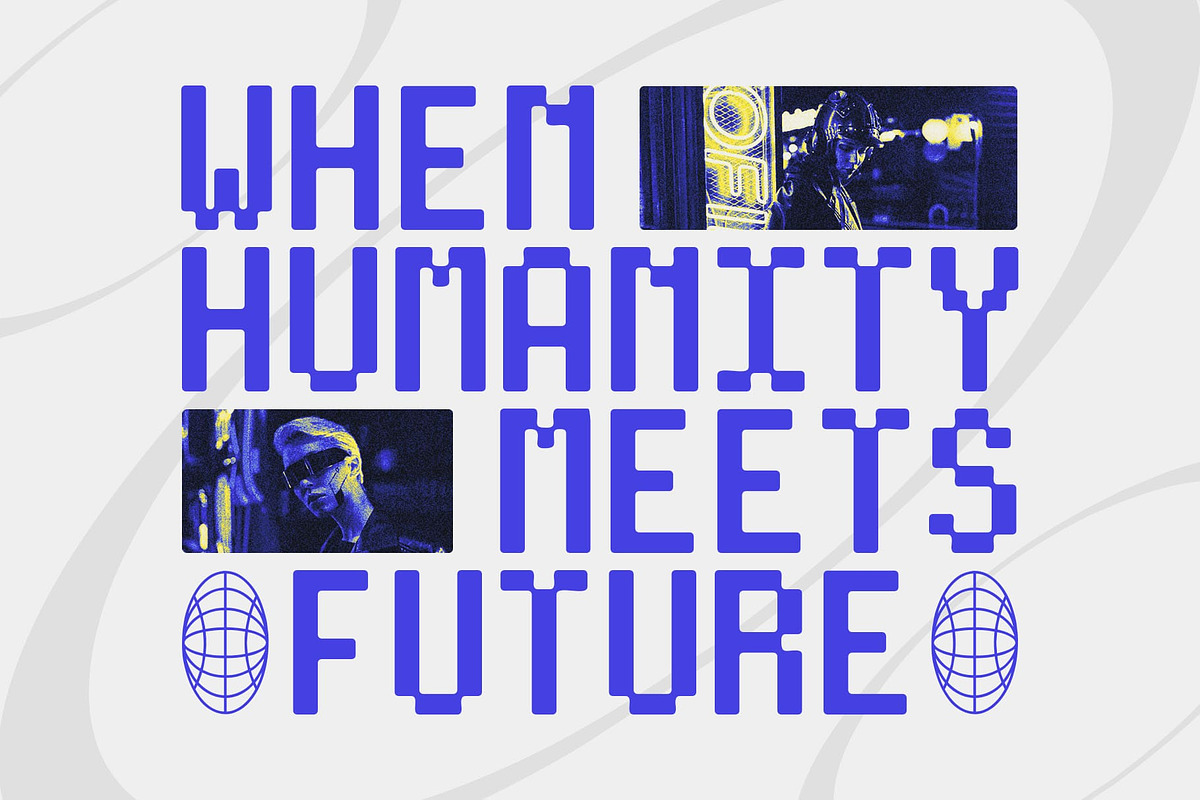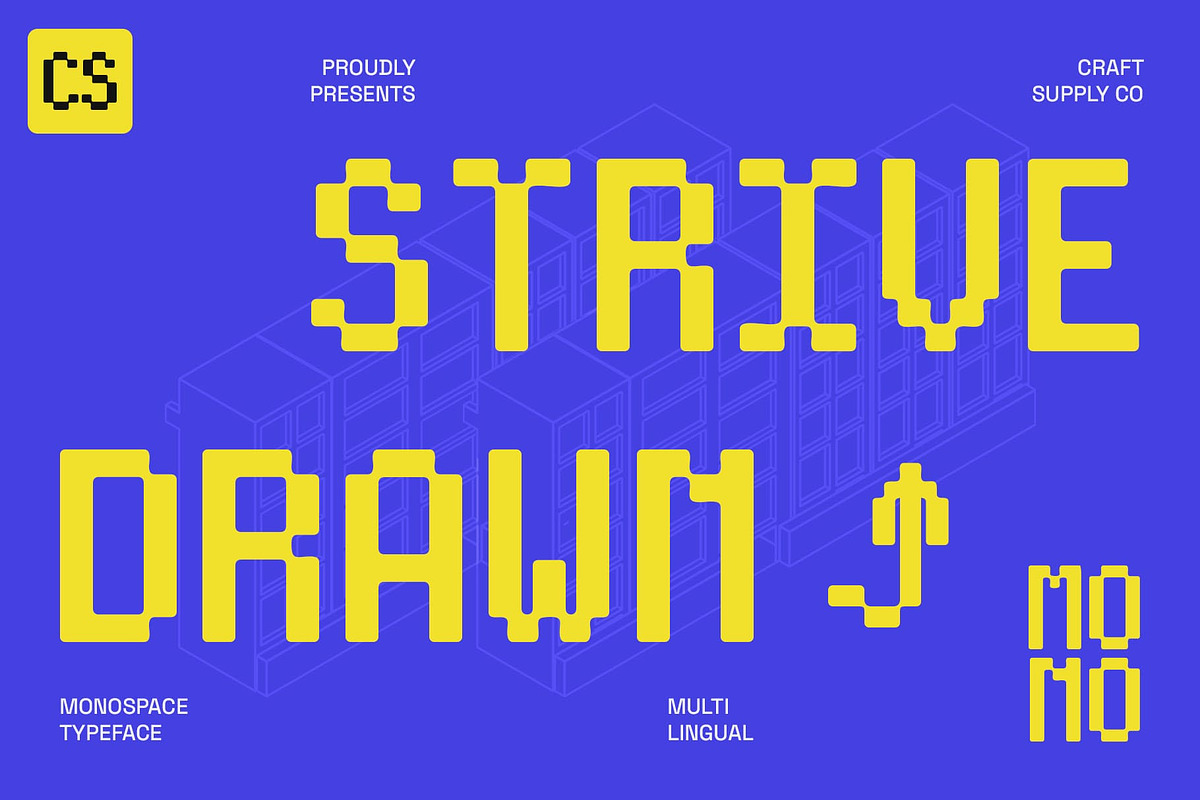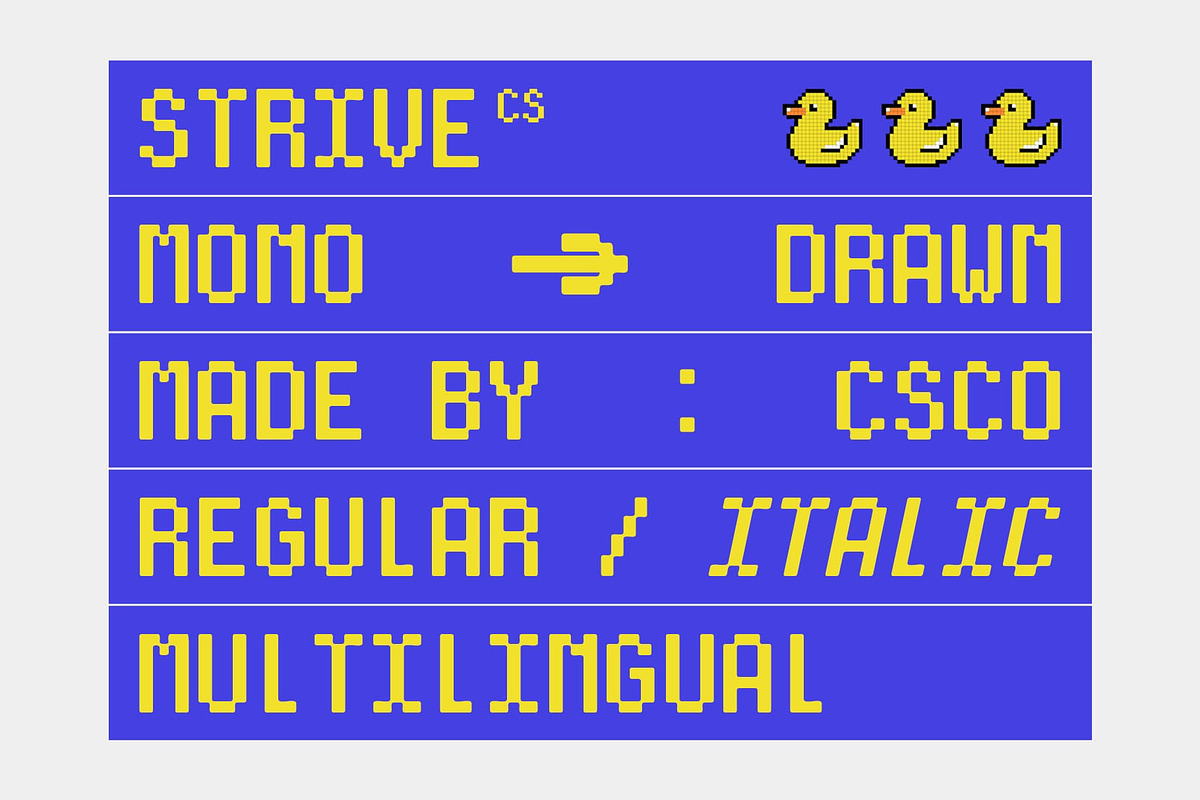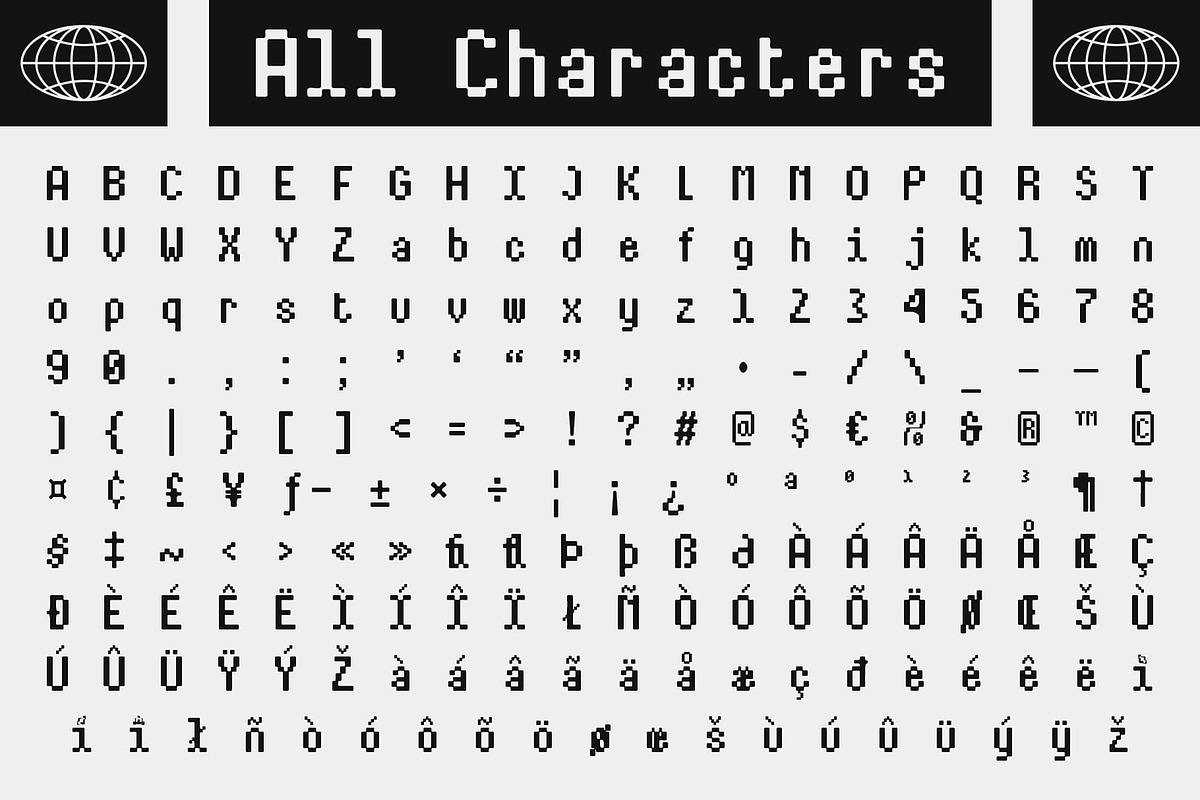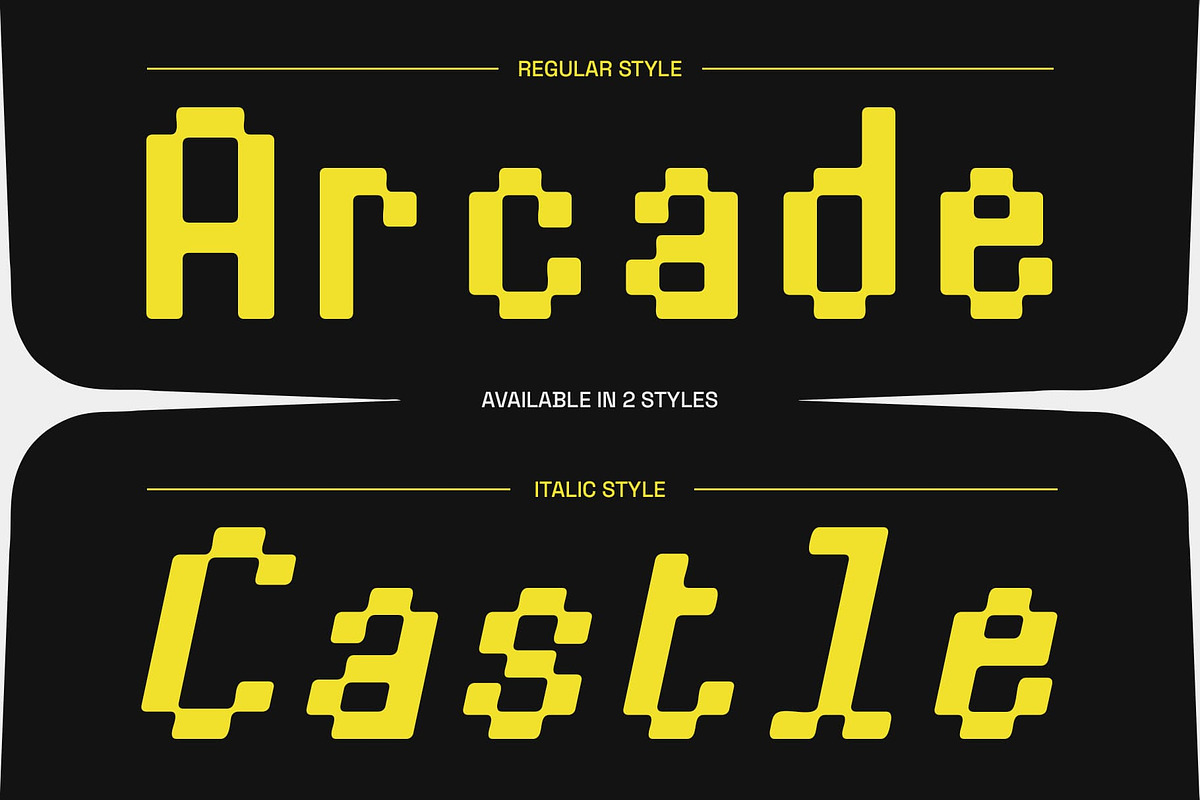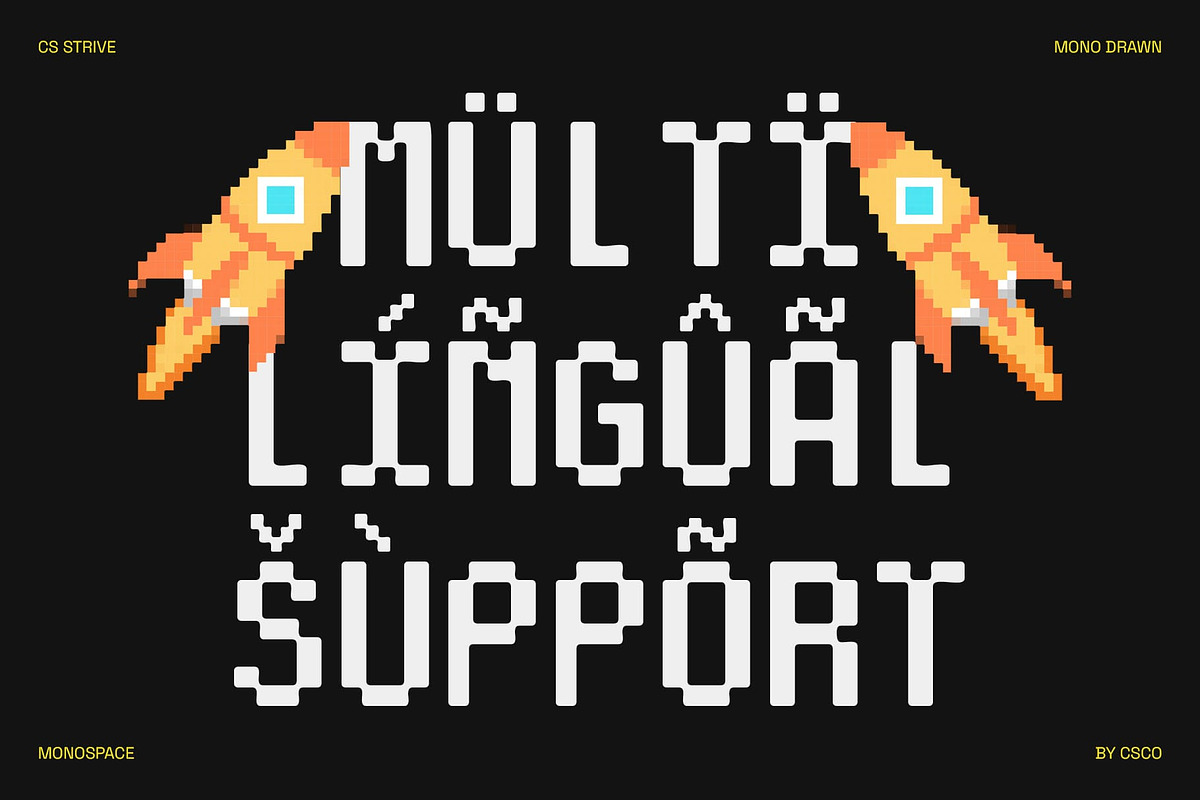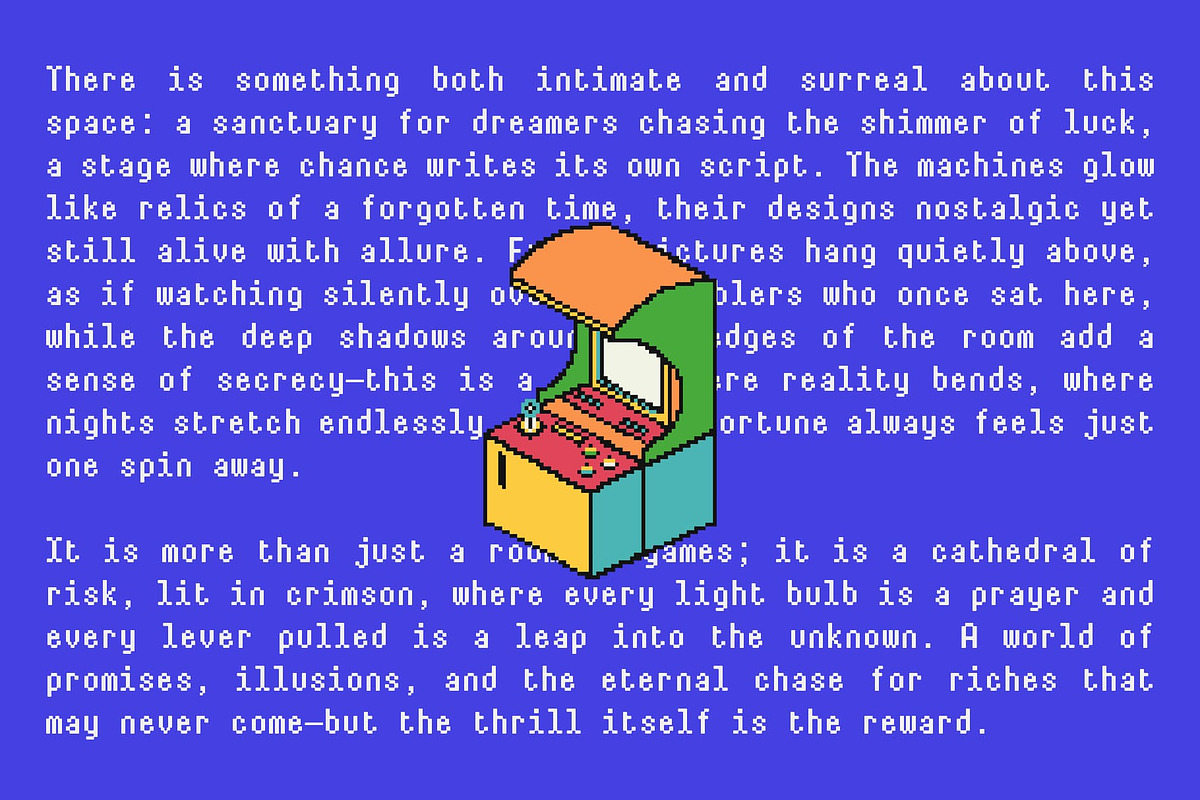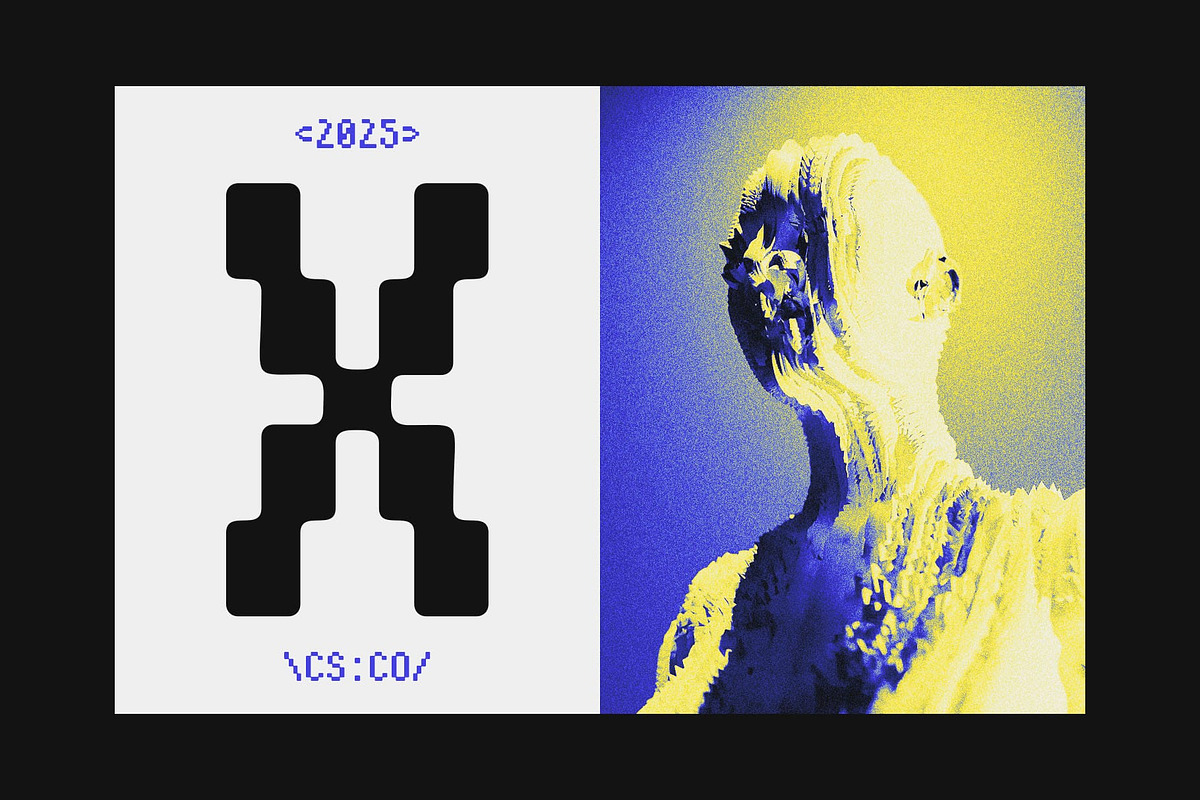
CS Strive Mono Drawn
CS Strive Mono Drawn – Monospaced Font with Pixel-Inspired Creativity
Modern Monospaced Design This is a modern monospaced sans serif font designed with consistent spacing that brings order and balance to every composition. Its structured form echoes the precision of coding and digital systems, making it a strong choice for projects that value clarity and rhythm in typography.
Pixel-Style Inspiration with a Drawn Twist Taking cues from pixelated aesthetics, this font feels instantly connected to retro digital culture and 90’s game visuals. Yet, the added drawn texture softens the rigid edges, creating an expressive, handmade touch. This unique combination allows the font to remain technical while also radiating warmth and individuality.
Ideal for Tech, Gaming, and Creative Projects From tech branding and coding interfaces to pixel-inspired posters and nostalgic game graphics, thrives in both professional and playful settings. It bridges the gap between strict monospaced form and creative artistry, making it suitable for a wide range of digital and print applications.
Balancing Structure with Expression The strength of lies in its versatility. Its professional mono structure ensures readability and alignment, while the artistic drawn effect adds flair and originality. Whether for branding, posters, or experimental layouts, this font captures the perfect harmony of modern precision and human creativity.